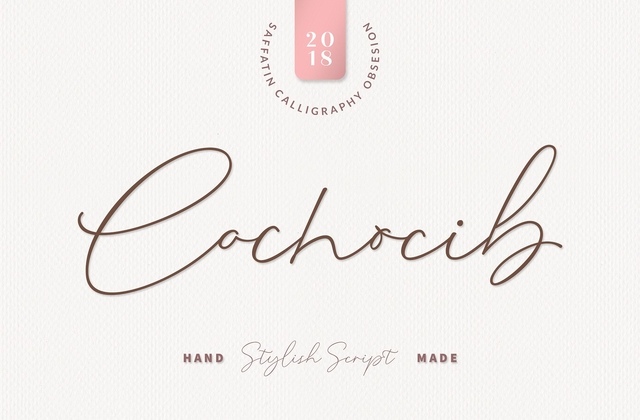
Cochocib Script Font
Cochocib Script Font is perfect for wedding invitations, greeting cards, luxury branding, calligraphy projects, feminine logos, social media quotes, restaurant menus, boutique signage, handwritten notes, and elegant packaging design.
Cochocib Script Font is exciting because it captures the authentic beauty of hand-lettered calligraphy with flowing, graceful strokes that add personality and warmth to any design. Its organic curves and natural rhythm create an intimate, personal connection with readers while maintaining sophisticated elegance that works beautifully in both casual and formal applications.
The Cochocib Script Font family includes Regular weight, Italic variations, Swash alternates, Decorative capitals, Stylistic sets, Ligatures, Flourishes, and Ornamental elements, providing designers with extensive creative possibilities for customized typography solutions.
Cochocib Script Font Free Download brings the timeless appeal of handwritten elegance to modern design projects. This exquisite script typeface features carefully crafted letterforms that mimic the fluid motion of traditional calligraphy, making it an ideal choice for brands and projects that value authenticity and artistic expression. The font's distinctive characteristics include natural letter connections, varied stroke weights, and organic imperfections that enhance its handmade charm.
Whether you're designing wedding stationery, luxury product packaging, boutique branding, or personal correspondence, Cochocib Script Font delivers exceptional visual impact. Its versatility makes it perfect for fashion brands, beauty products, artisanal goods, and creative services that want to convey elegance and sophistication. The script's flowing nature works beautifully for headlines, signatures, quotes, and decorative text elements.
Perfect for graphic designers, calligraphers, wedding planners, and small business owners, this font provides the romantic appeal needed for memorable brand experiences. The elegant script style resonates particularly well with female audiences and luxury market segments, making it invaluable for premium positioning strategies.
Cochocib Script Font includes extensive character sets, multilingual support, and special glyphs that expand creative possibilities. Its digital optimization ensures smooth curves and clean rendering across all platforms while maintaining the authentic handwritten appearance that makes script fonts so appealing. Transform your designs with Cochocib Script Font Free Download and create stunning typography that captures hearts and attention.